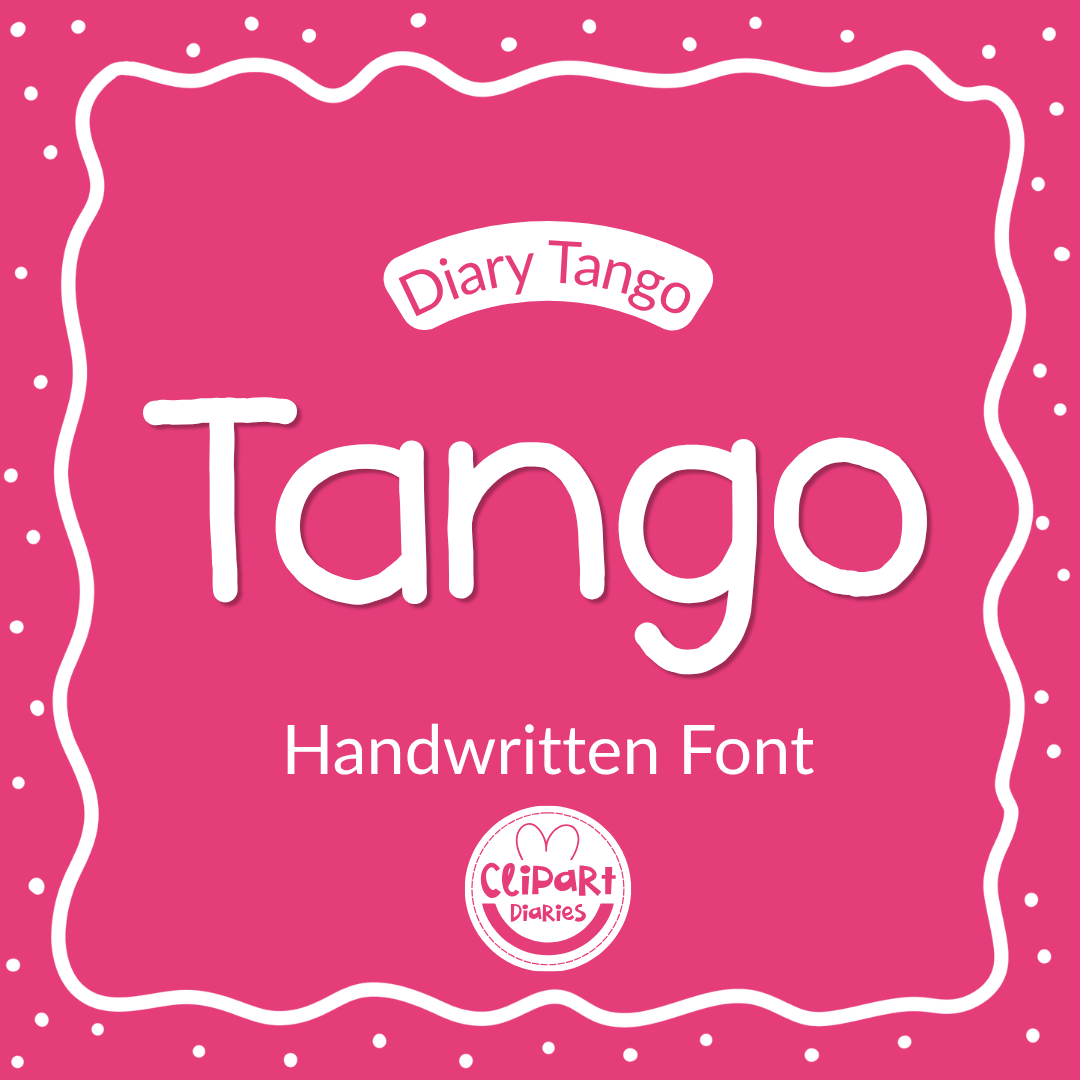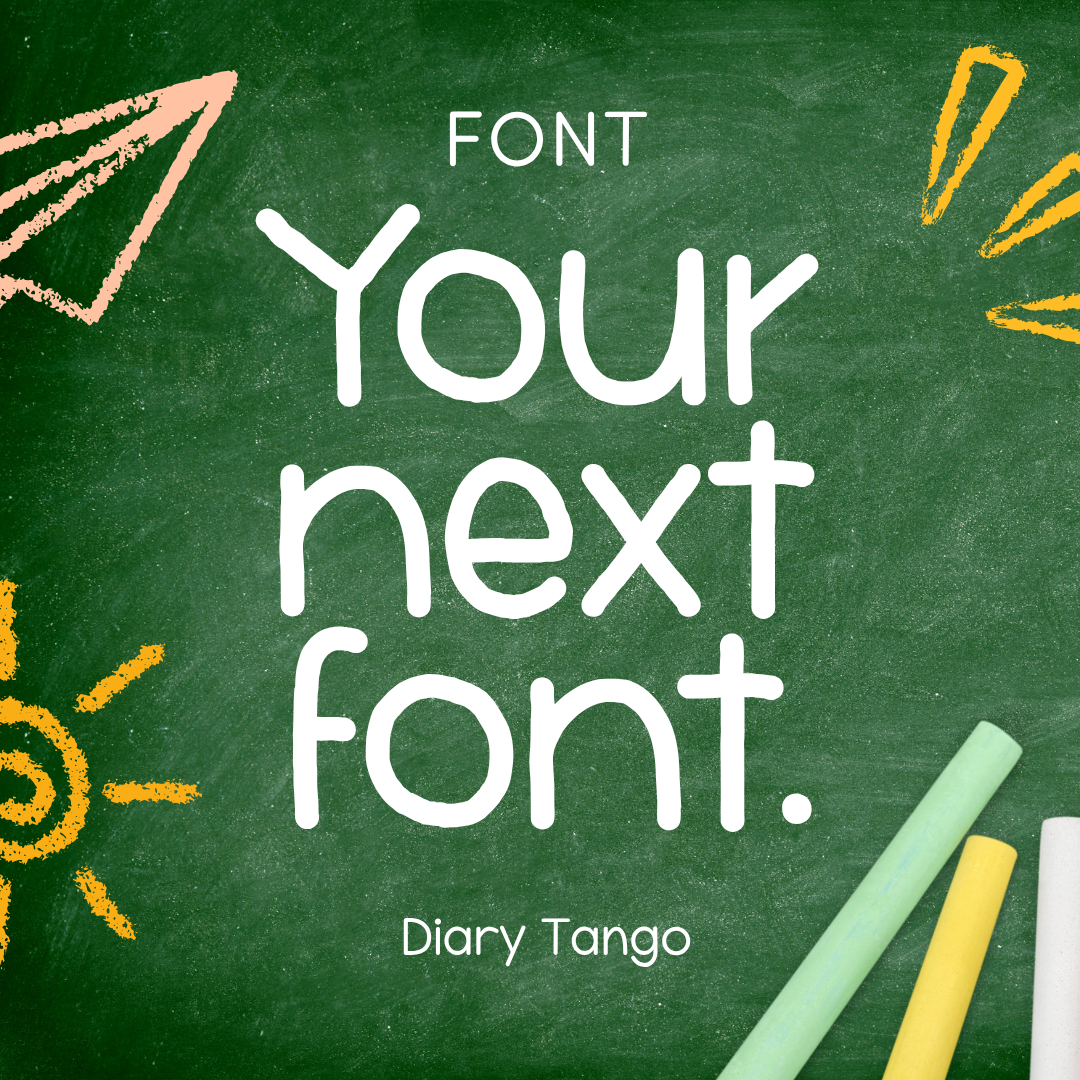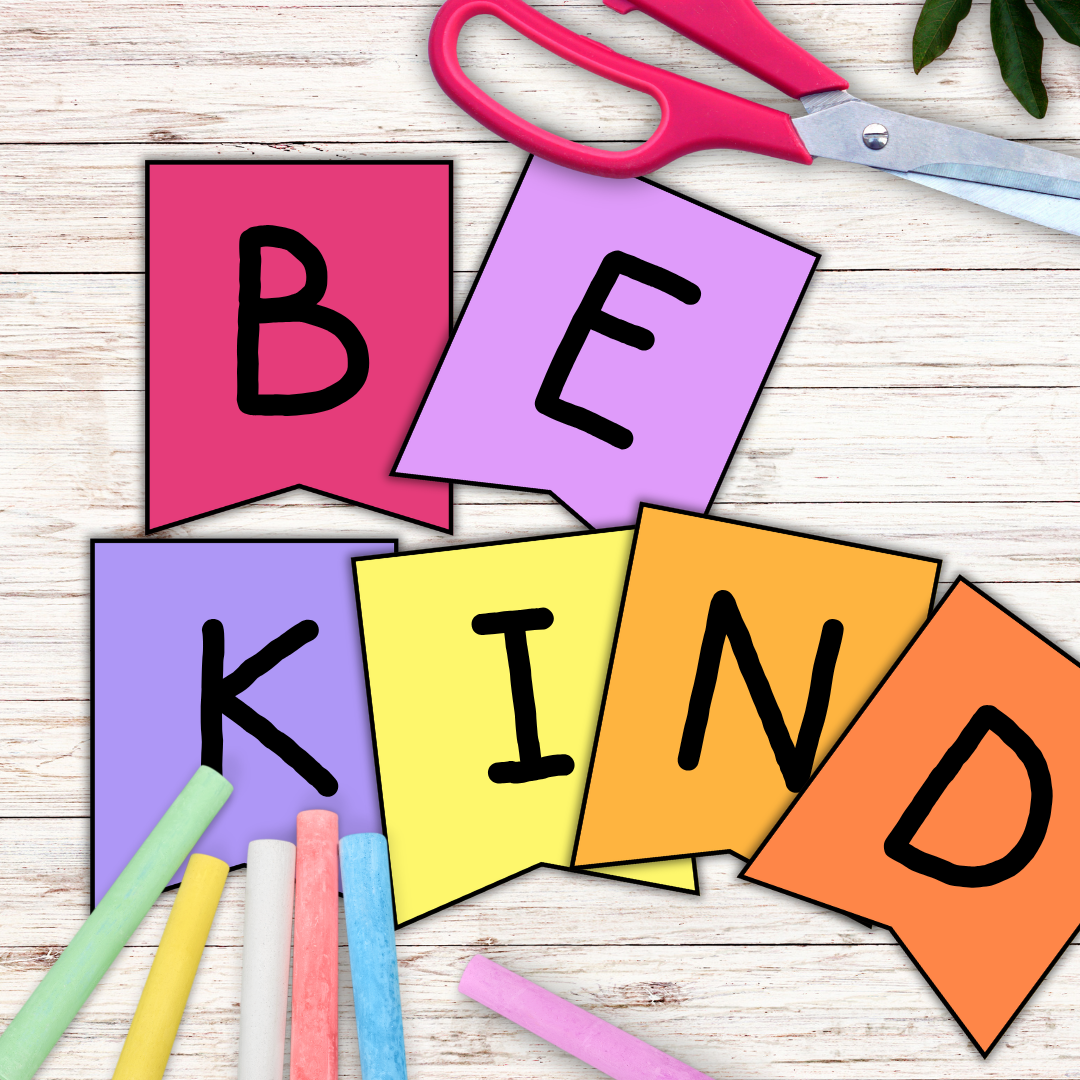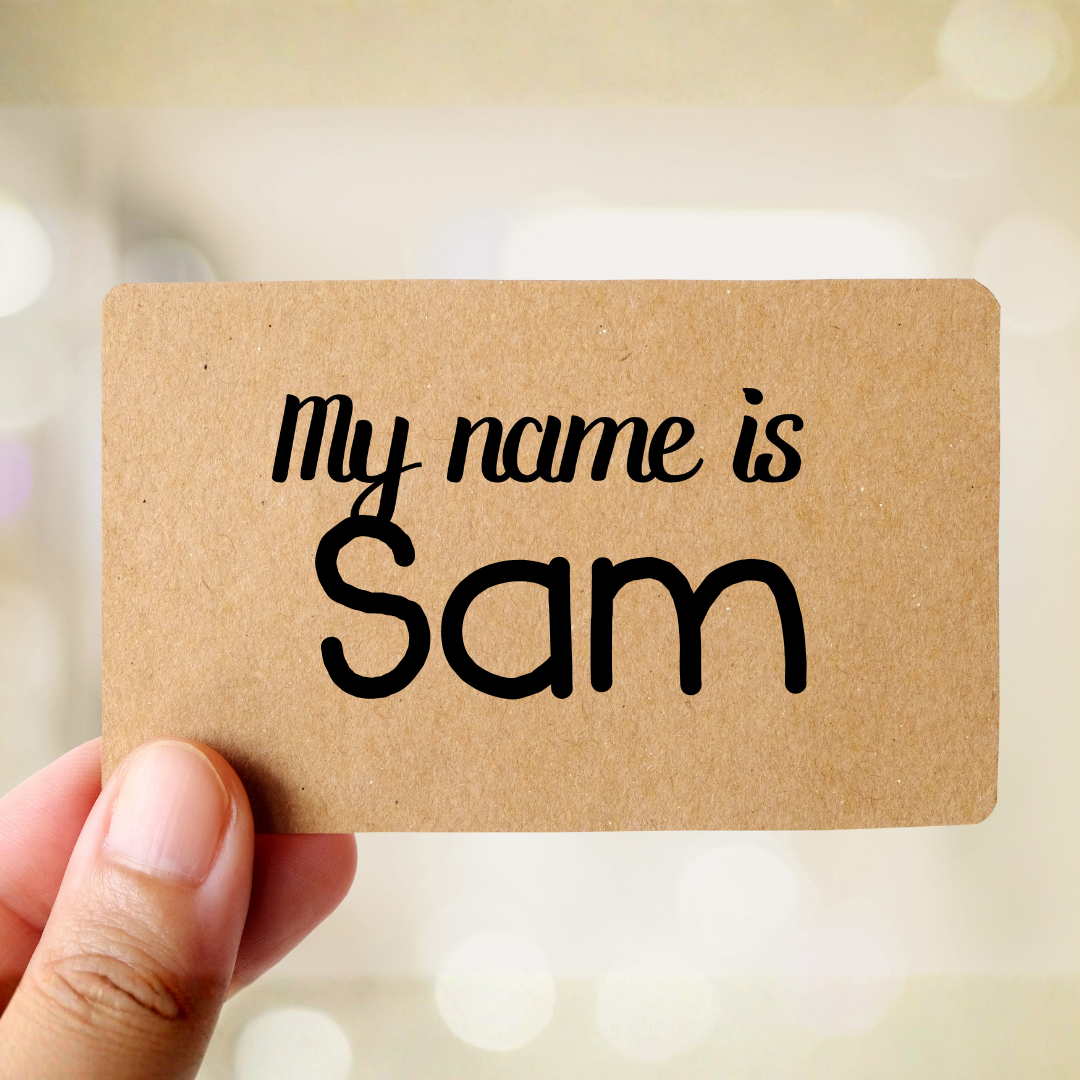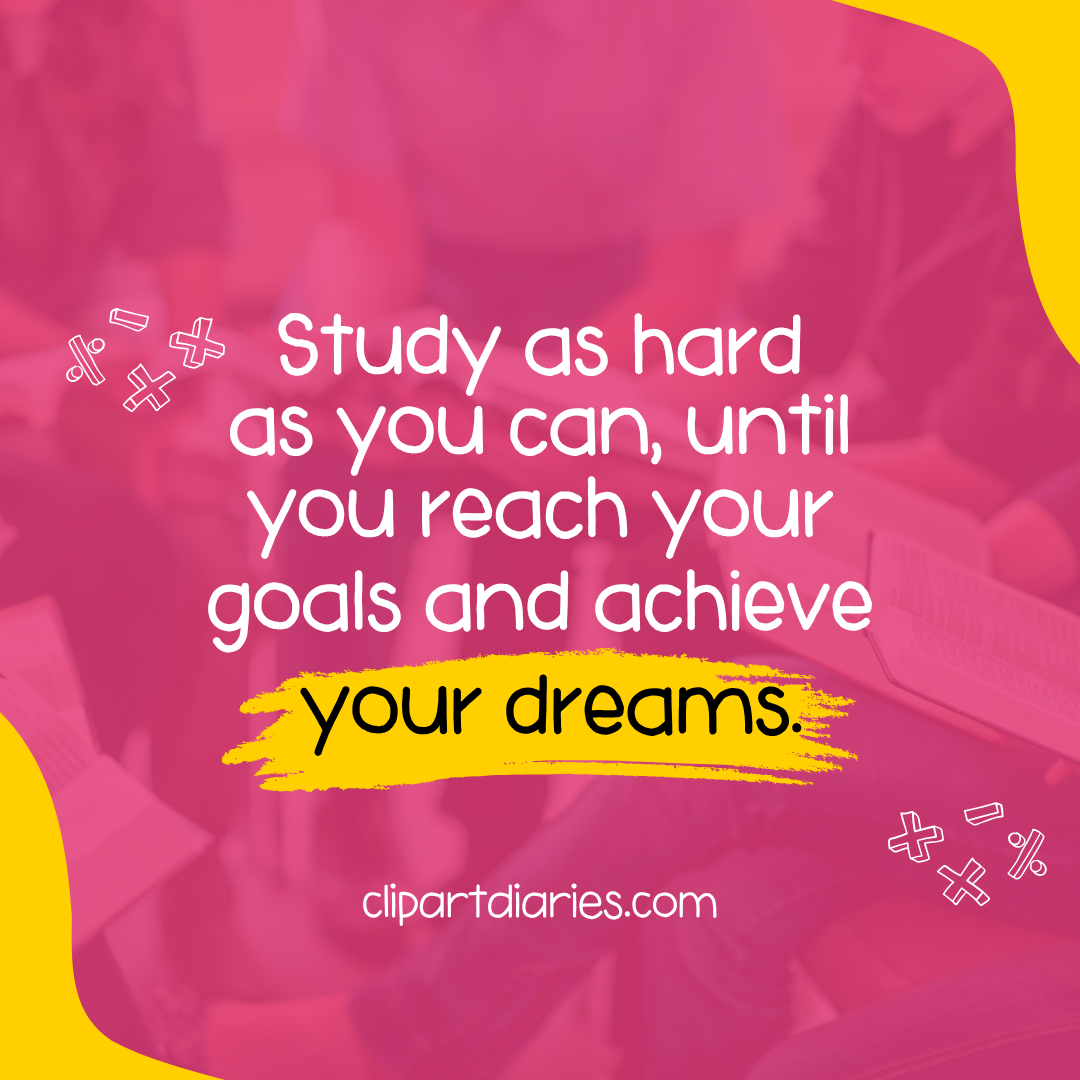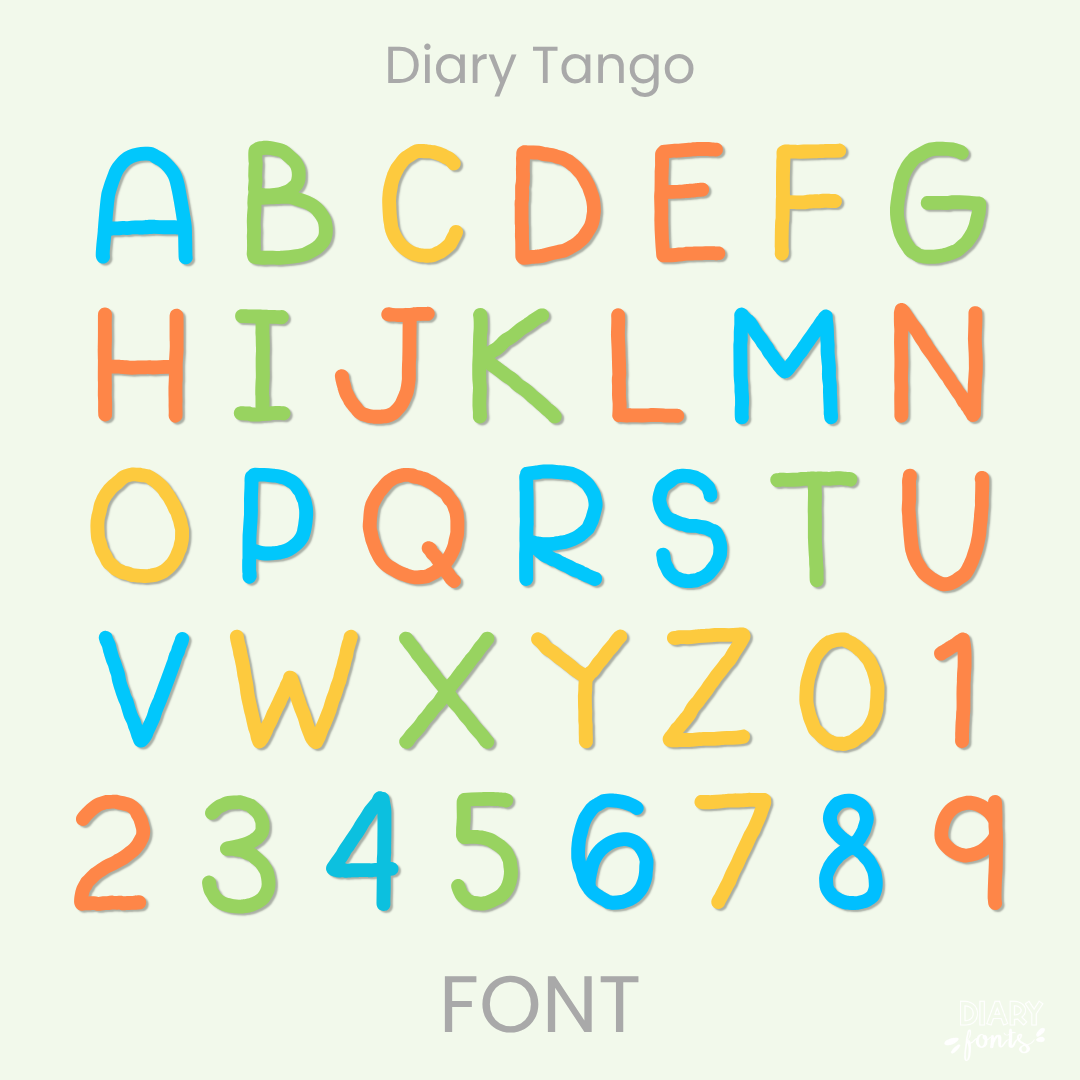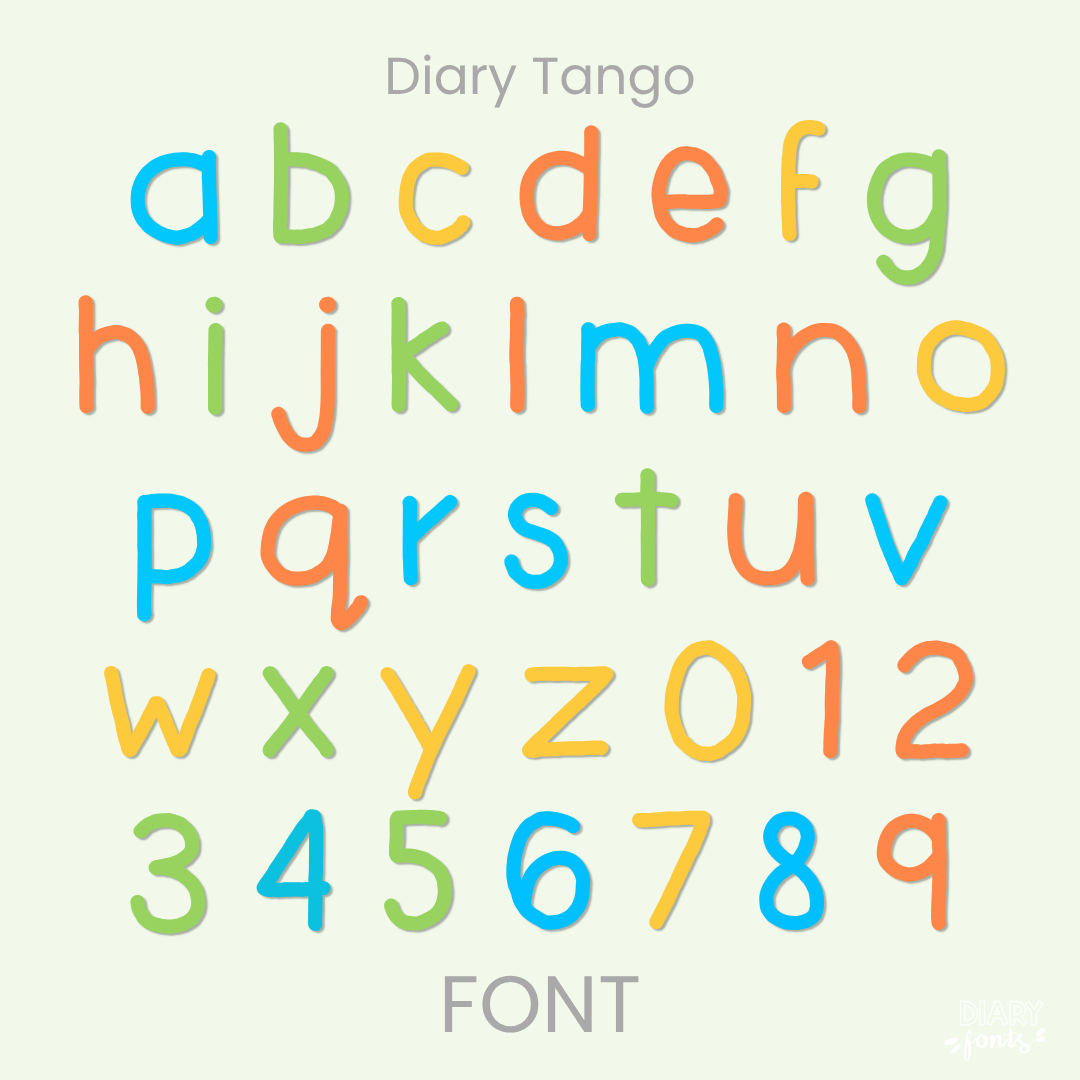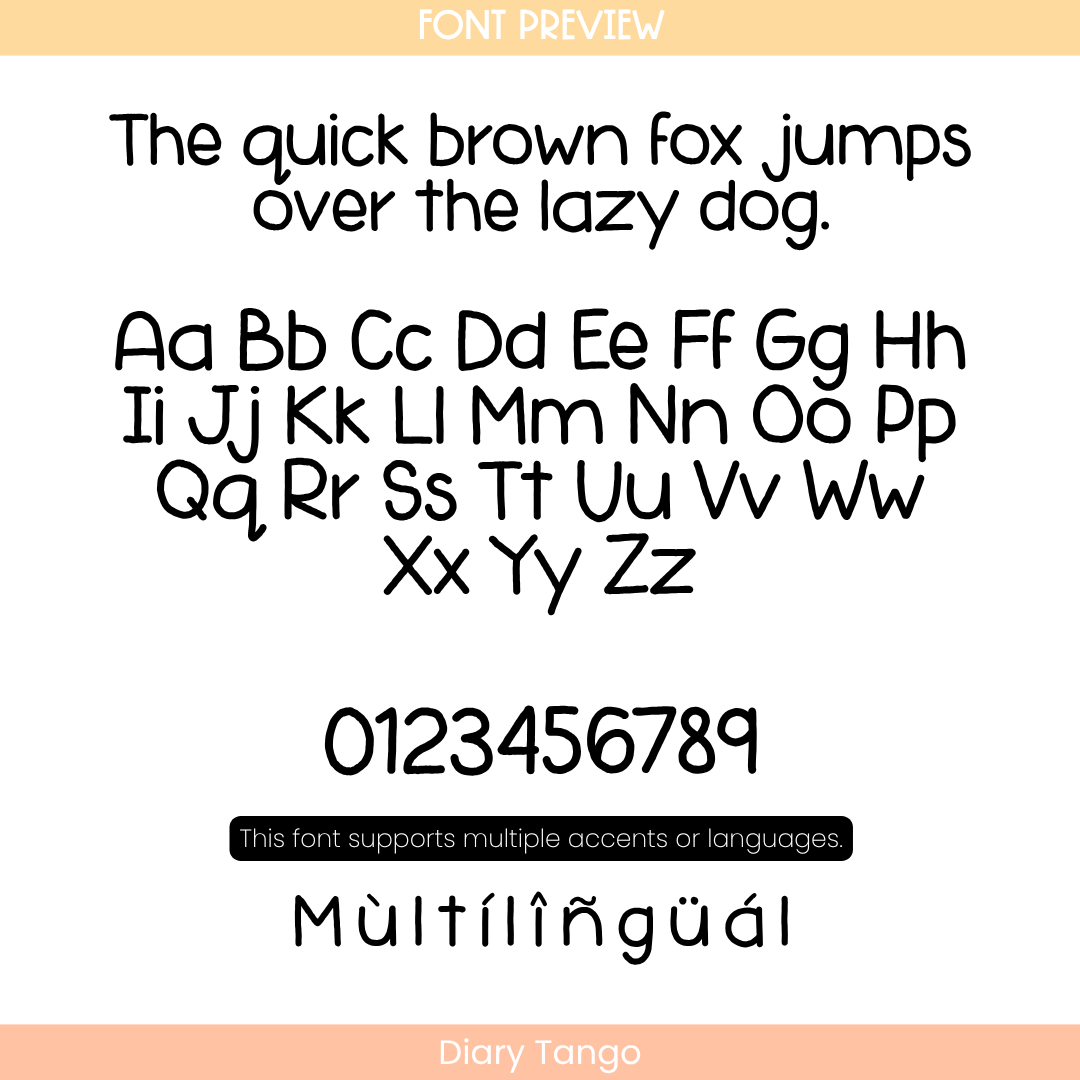
If you’ve been looking for a reliable, everyday primary font that has all the sweet charm of natural handwriting but keeps your text looking incredibly tidy, Diary Tango is about to become your new absolute favorite design tool. This typeface features uniform line weights and neat, rounded letterforms that sit perfectly straight along the baseline. Because these delightful hand-drawn characters are tall, open, and feature generous breathing room, it completely eliminates visual clutter—making it an exceptionally clear and legible worksheet typography choice for your sweet students to read and track.
Diary Tango Font
Diary Tango is that clean, playful handwritten font and neat classroom print typeface you need to bring a friendly, perfectly organized, and cheerful look to your daily worksheets, bulletin boards, and morning slides!